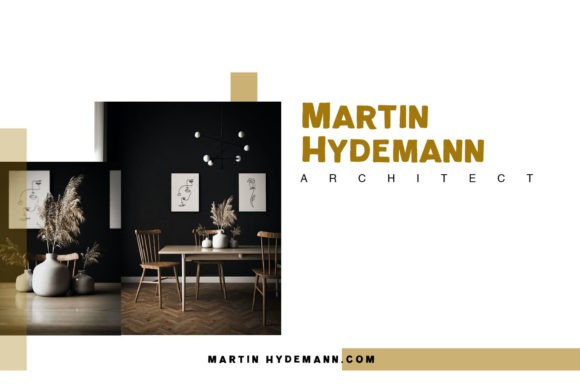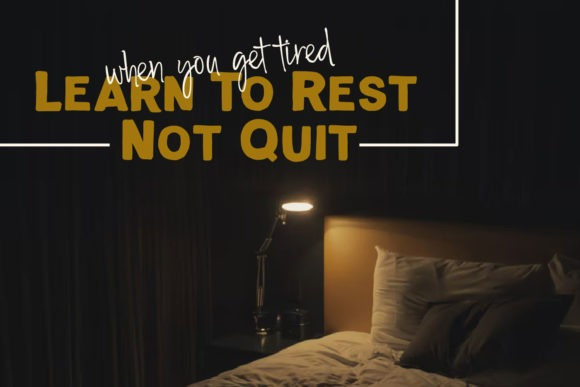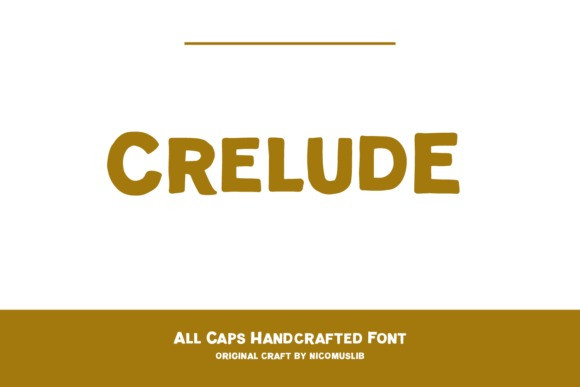
Crelude Font
Crelude Display Font is a cool, rough textured and vintage styled display font. It will fit perfectly on each of your designs.
Have fun with this beautiful font and explore its endless variations.